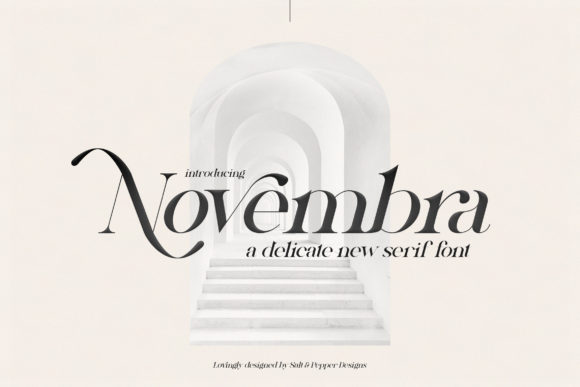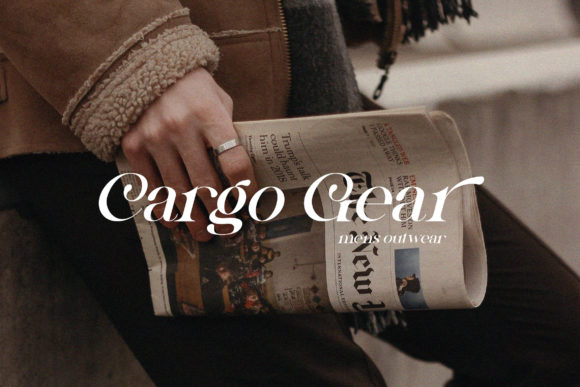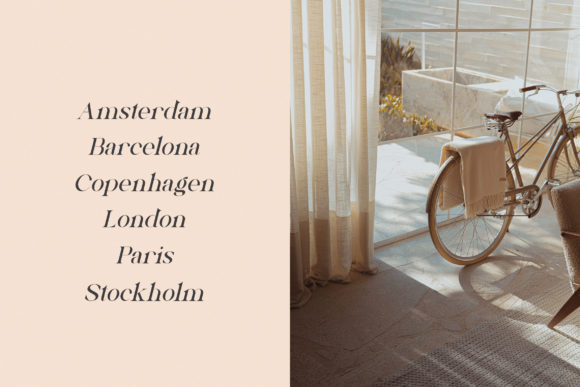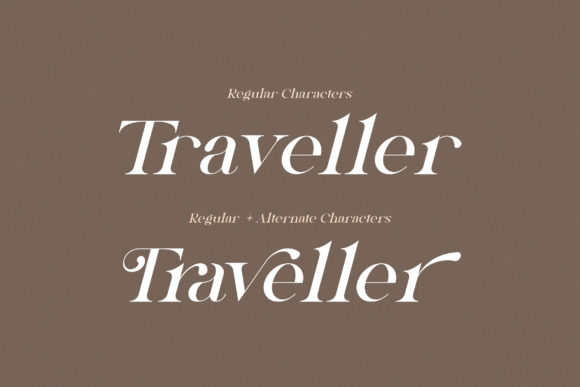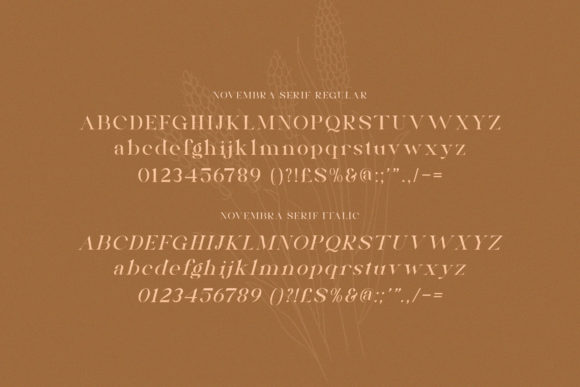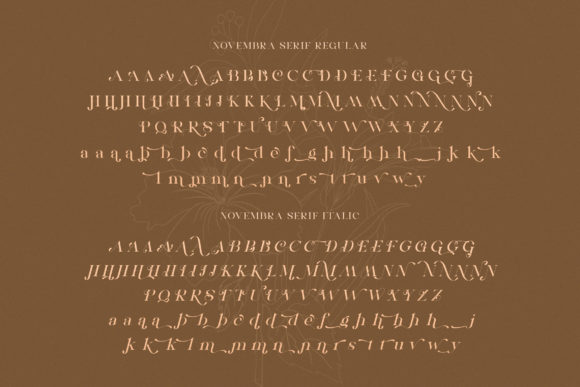
Novembra Font
Novembra is an elegant and distinct serif font. It will add a luxury spark to any design project that you wish to create! This font is PUA encoded which means you can access all of the amazing glyphs and ligatures with ease!